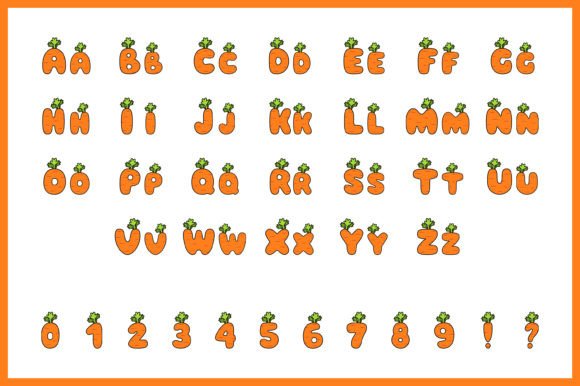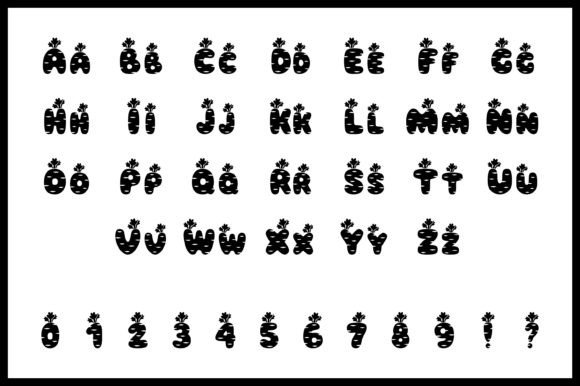
Meet the Crunchy New Kid on the Block: Carrot Font
Have you ever stared at a blank design canvas, waiting for that spark of creativity to hit? For many designers, it’s a familiar feeling. But what if that spark came in the form of a vibrant, playful typeface that’s sure to grab attention?
Enter Carrot Font, the colorful and whimsical typeface that’s making waves in the design world. This charming font features carrots as its primary design element, with each letter carefully crafted to resemble a crunchy, juicy carrot. With its unique blend of colors and textures, Carrot Font is perfect for creating eye-catching headlines, titles, and other text elements that add a touch of personality to any design.
Carrot Font Key Features
- Font Family: Carrot Font is a sans-serif font family that offers a unique and playful feel to any design project.
- Character Set: The font family includes a comprehensive character set, including Latin, Cyrillic, and Greek alphabets, as well as various punctuation marks and symbols.
- Unique Characteristics: The font’s unique characteristics include its rounded shapes, subtle curves, and playful feel, which make it ideal for use in creative and whimsical design projects.
Carrot Font Review
Carrot Font is a quirky and fun font that’s perfect for adding some personality to your designs. Here’s what I think works well:
- ✨ Unique style: Carrot Font has a distinct, hand-drawn feel that sets it apart from more traditional fonts.
- ✨ Versatile: It works well for a wide range of projects, from food labels to advertising posters.
- ✨ Fun and playful: Carrot Font is sure to put a smile on your customers’ faces and make your designs more engaging.
- ⚠️ Limited legibility: In smaller sizes, Carrot Font can become difficult to read, which may not be ideal for projects that require clear, concise text.
- ⚠️ Limited character set: The font’s unique style means that it may not include all the characters you need, such as certain symbols or accented letters.
Overall, I think Carrot Font is a great choice for designers who want to add some personality to their projects. While it may not be suitable for every project, it’s a fun and versatile font that can help take your designs to the next level.
Tips for Getting the Most Out of Carrot Font
Use Carrot Font to add a playful touch to your designs, especially for food-related or children’s content.
Combine Carrot Font with other fonts to create a unique and eye-catching visual style.
Experiment with different font sizes and colors to create a dynamic and engaging design.
Carrot Font is ideal for:
Food blogs and recipe websites
Children’s books and educational materials
Advertising and marketing campaigns for food-related products
Alternatives to Carrot Font
Great Vibes is a beautiful, elegant script font perfect for creating a unique and sophisticated look. It’s ideal for use in branding, advertising, and editorial design. Great Vibes has a similar playful feel to Carrot Font but with a more refined and polished appearance.
Comparison: Great Vibes has a more mature and sophisticated feel compared to Carrot Font’s playful and casual vibe.
Pacifico is a beautiful, modern script font that’s perfect for creating a beachy or tropical feel. It’s ideal for use in branding, advertising, and editorial design. Pacifico has a similar relaxed and casual feel to Carrot Font but with a more polished and refined appearance.
Comparison: Pacifico has a more relaxed and casual feel compared to Carrot Font’s playful and energetic vibe.